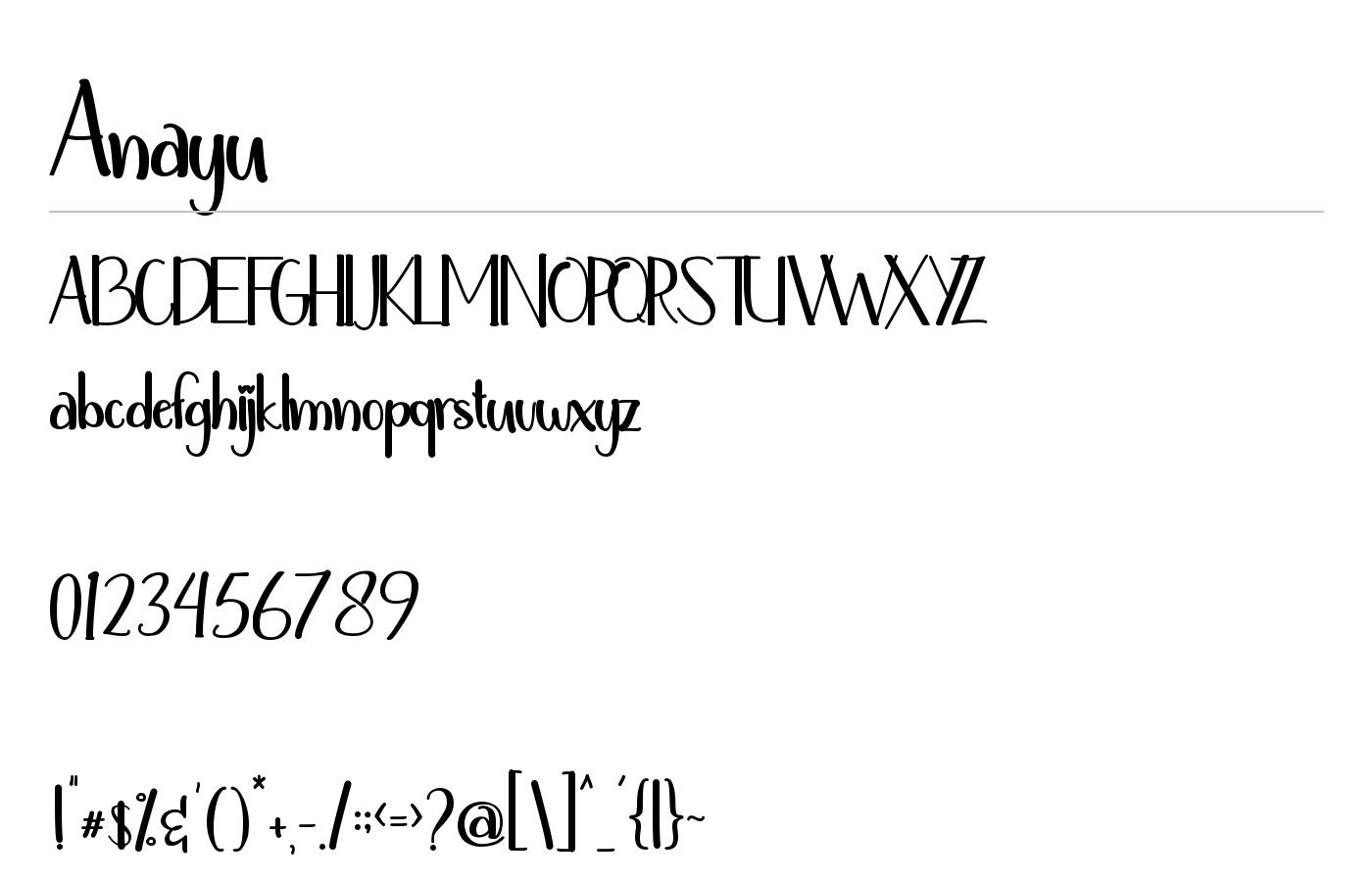
Anayu is a playful and quirky sans serif font with a handwritten feel, featuring tall, slender letterforms and irregular strokes that give it a lively, casual personality. Its narrow width and unique, flowing shapes make it perfect for creative projects, children’s books, or packaging that seeks a friendly, approachable look. This font works best in headlines, logos, and display text where its distinctive style can really stand out and add charm.
Anayu Font
About Anayu Font
| Font family | Anayu Font |
| Designer | Endri Sulistyawan |
| Trademark | Rashatype |